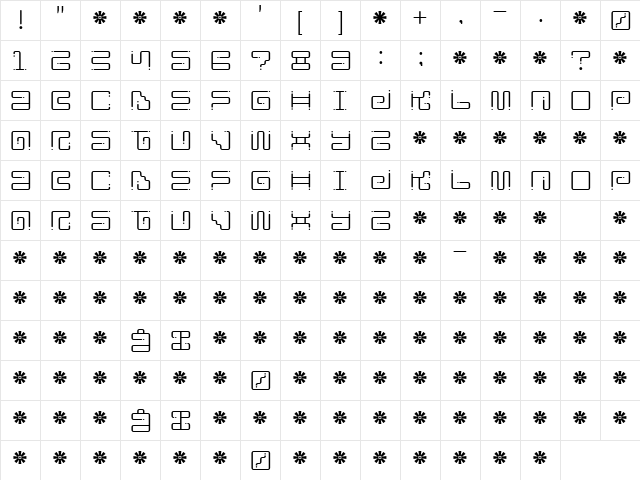
Iron Lounge Dots Regular Free Font
Iron Lounge Dots Regular
Design Context for Iron Lounge Dots
Iron Lounge Dots is rooted in pixel-grid construction, making it a natural fit for game UI, retro computing aesthetics, and digital nostalgia projects.
Pro Tip: Use Iron Lounge Dots at sizes that align with its pixel grid for the sharpest rendering - scaling to non-integer multiples can introduce unwanted blur.